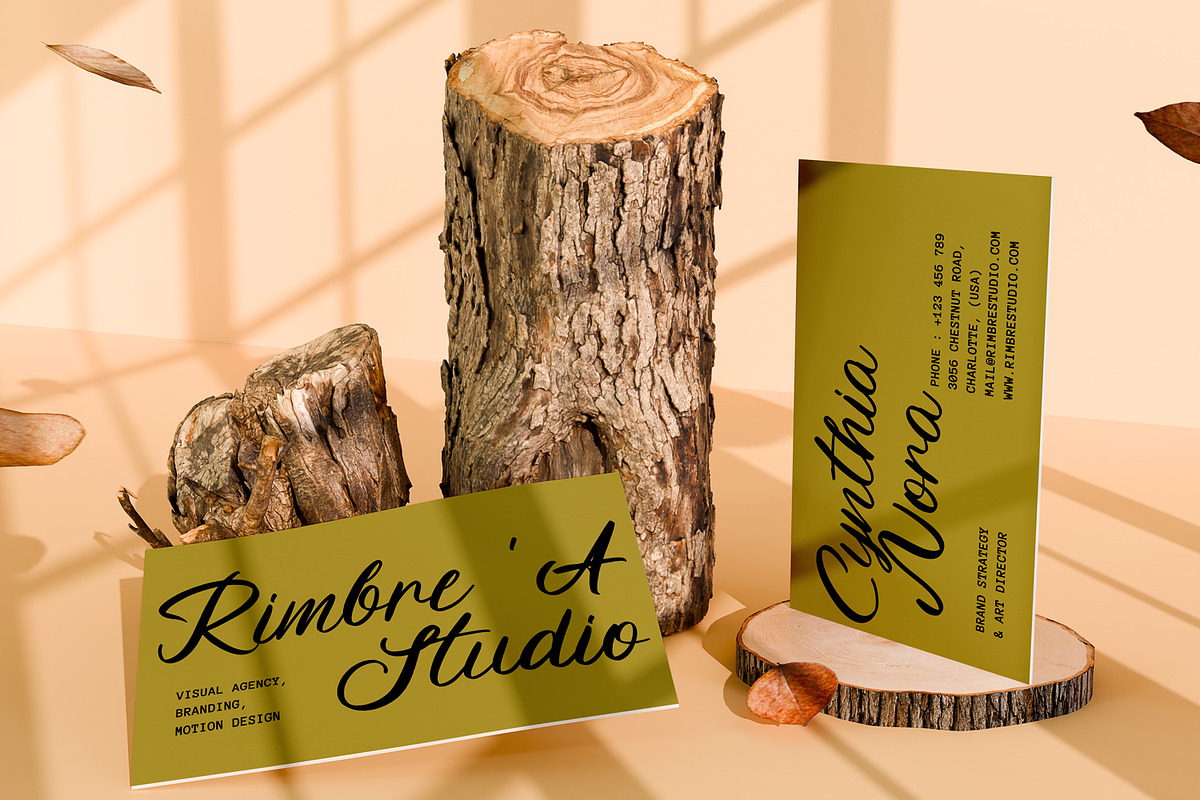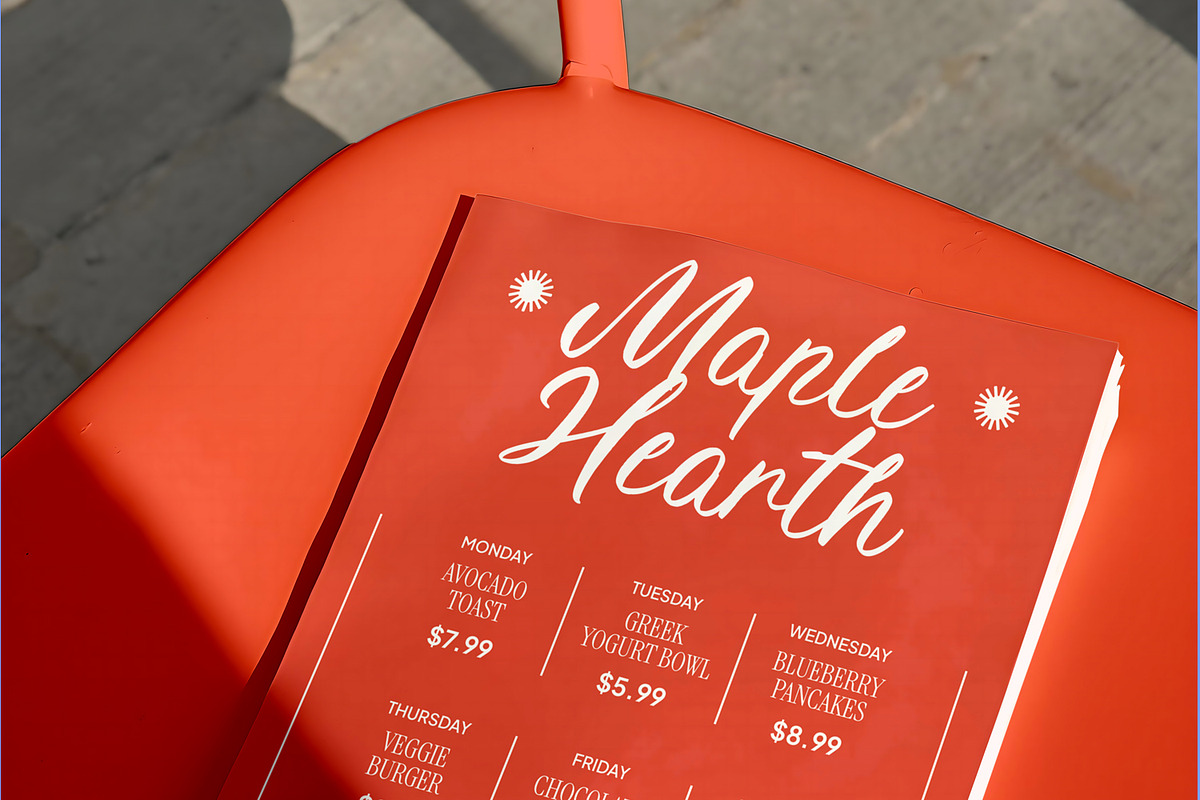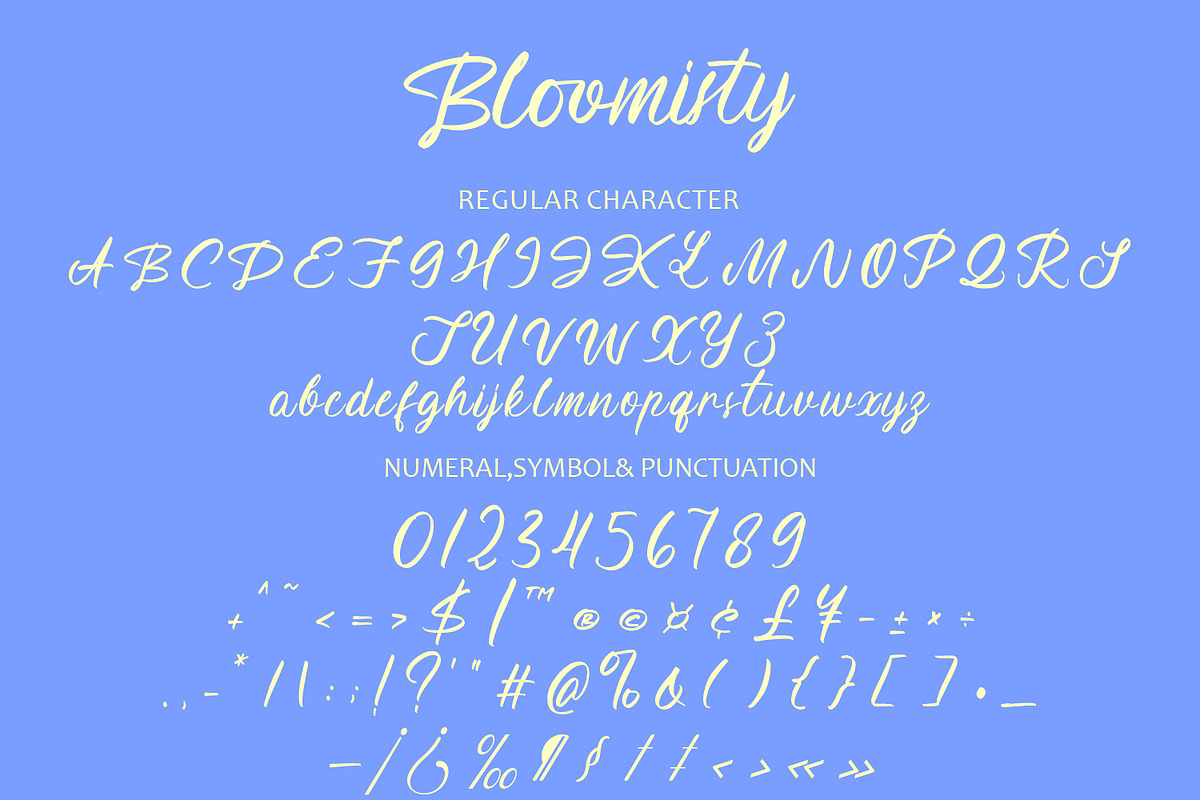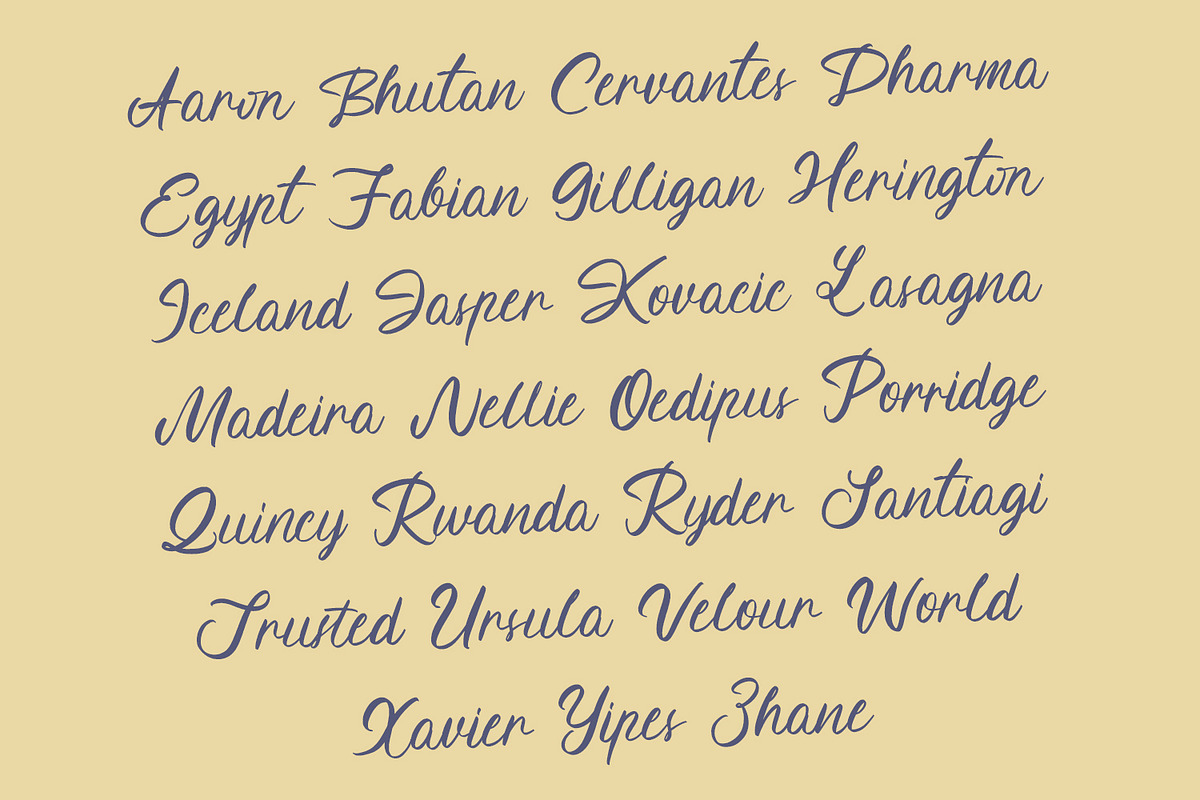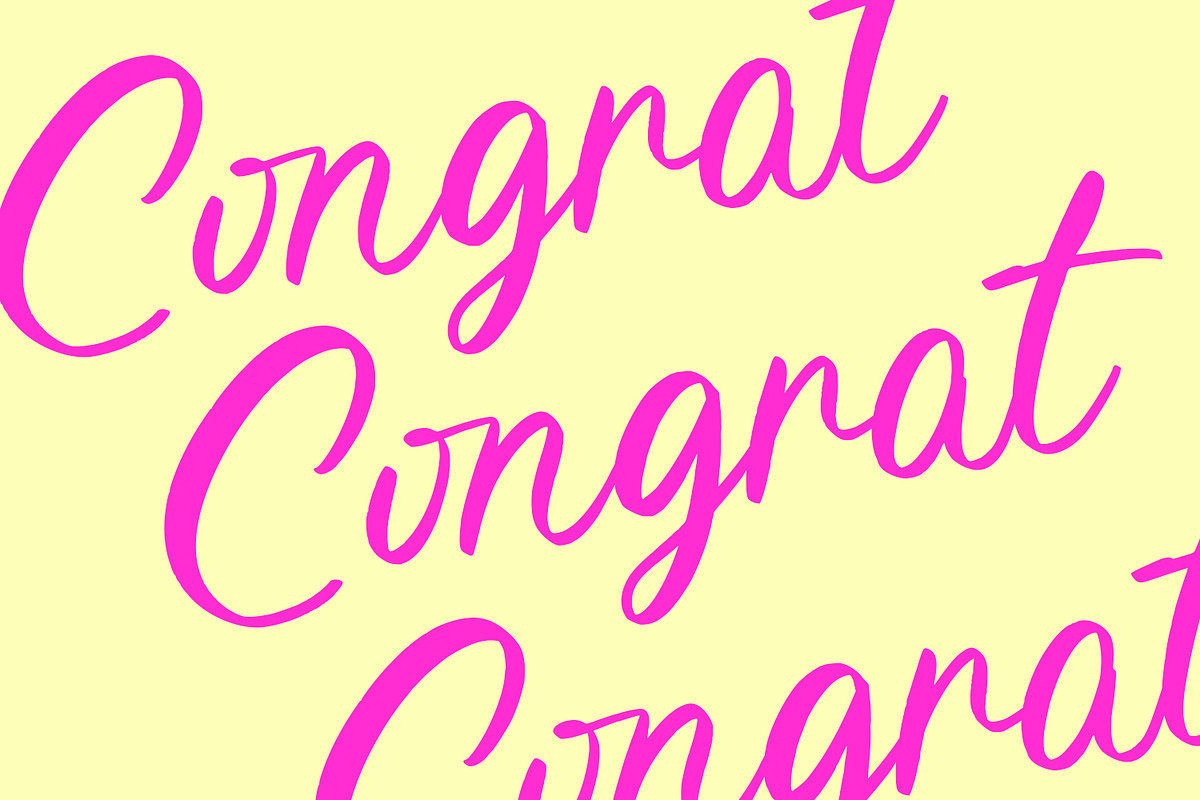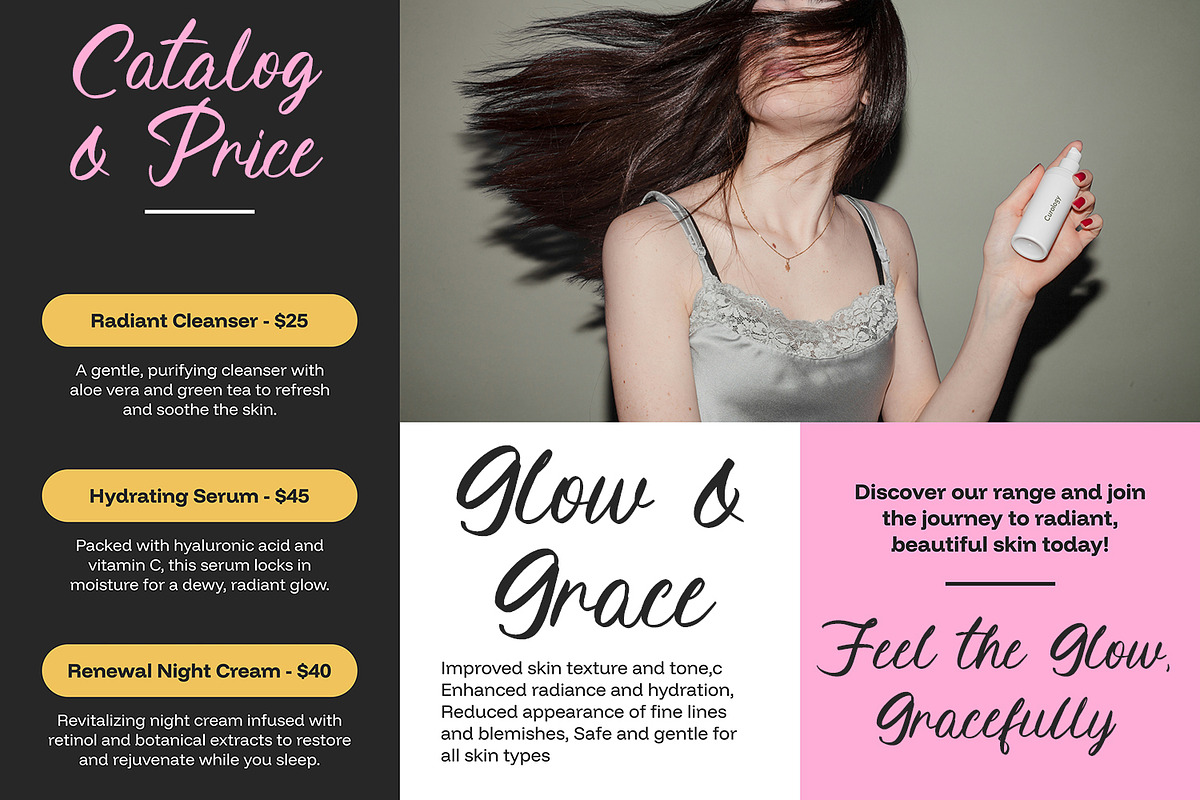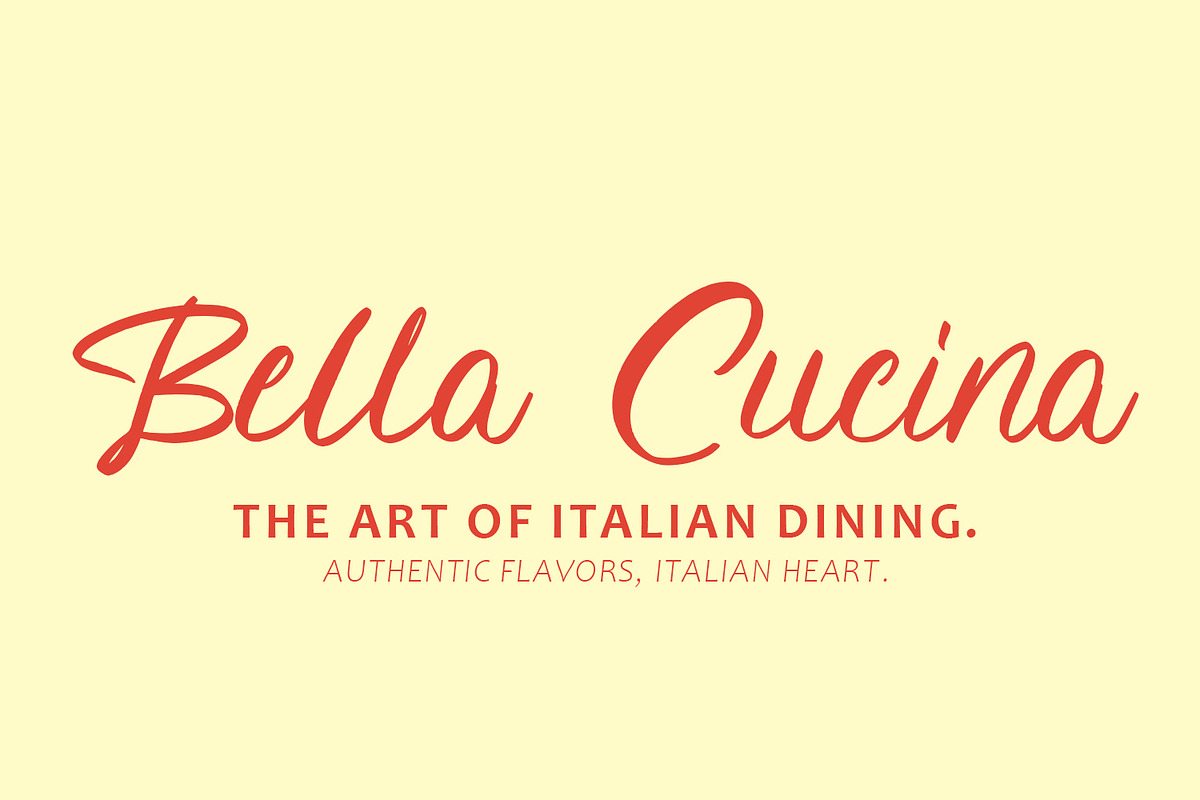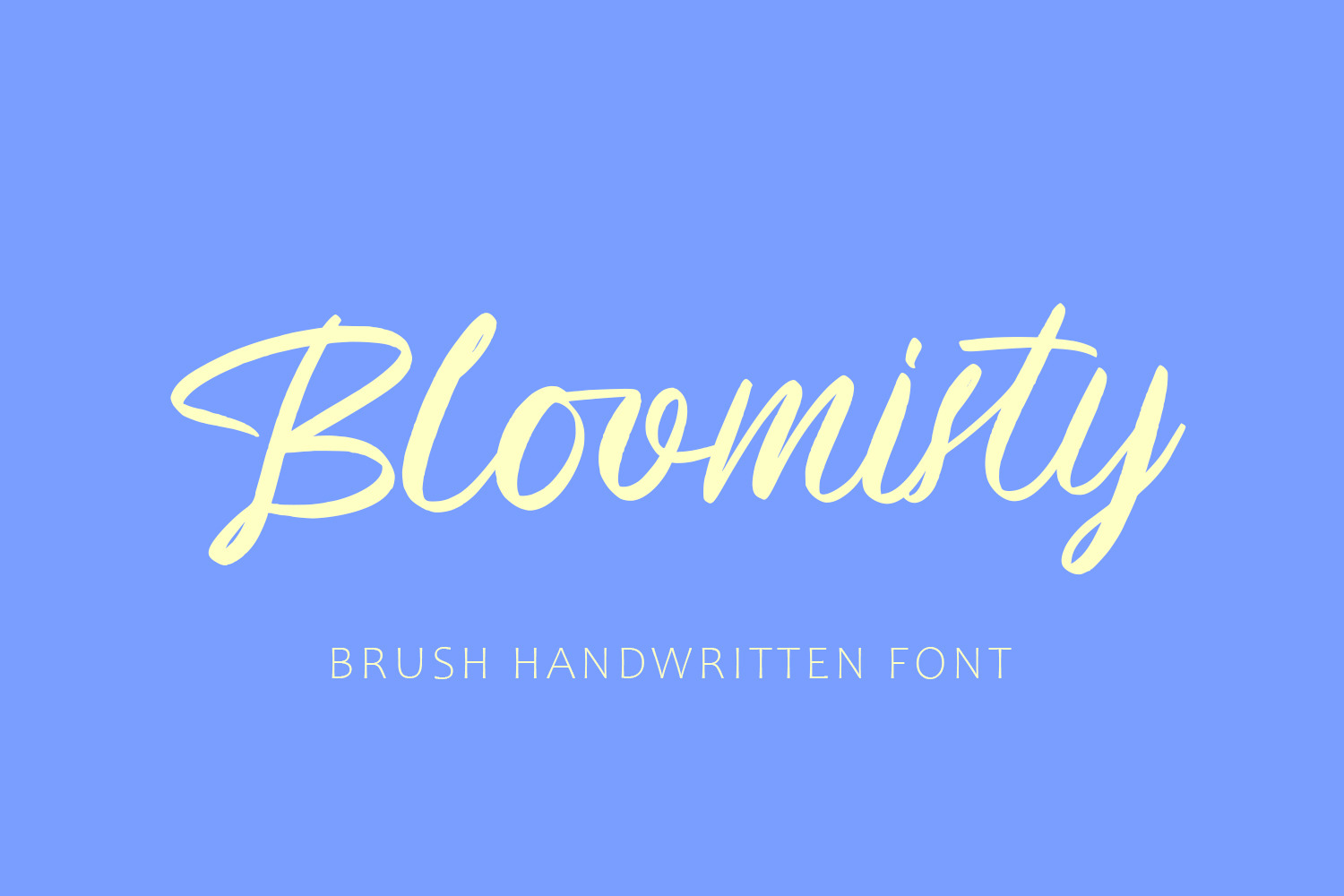
Bloomisty – Brush Handwritten Font
Bloomisty is a charming brush handwritten font that captures the essence of casual elegance. With its smooth brush strokes and natural flow, this font is perfect for creative projects that need a personal, heartfelt touch. Ideal for branding, greeting cards, logos, social media posts, and wedding invitations, Bloomisty brings a fresh, modern vibe while maintaining a handcrafted feel. Let your words bloom with personality using this lovely and expressive typeface.
* Uppercase Letters
* Numbers & Punctuation
* Ligature & Alternate Character
* Unique Hand-Drawn Style